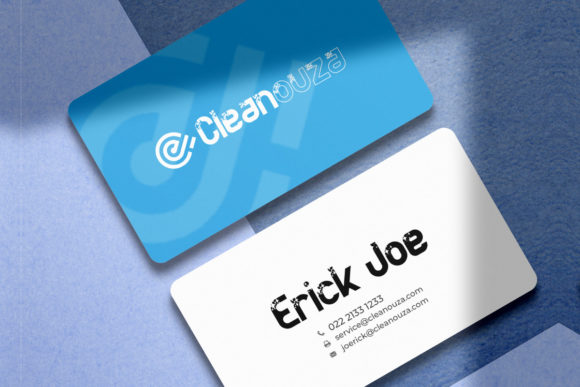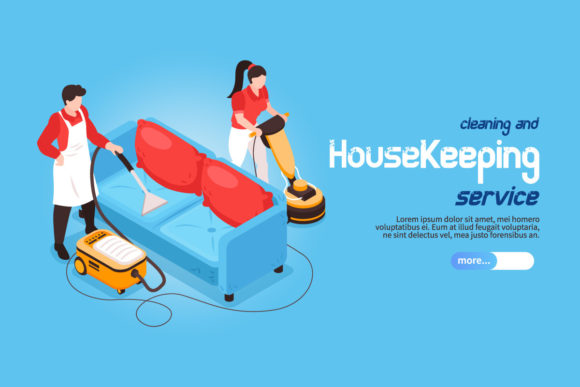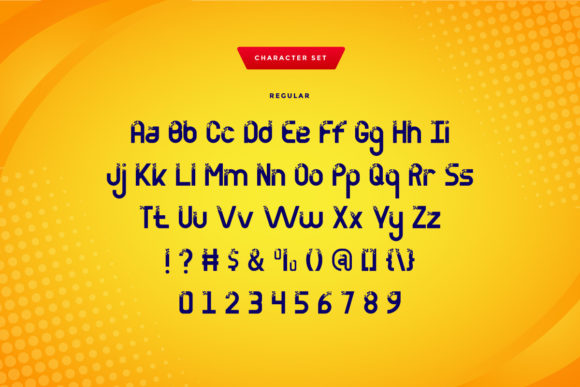
Introduction to Power Clean Font
Have you ever stared at a blank page, unsure of where to begin your next creative project? The blank canvas can be daunting, but what if you had the perfect tool to spark your imagination? That’s where the Power Clean Font comes in – a game-changing design resource that can elevate your work to the next level.
As a designer, you’re always on the lookout for high-quality fonts that can add a professional touch to your designs. The Power Clean Font is a cool and modern display font that’s perfect for making a statement. Whether you’re working on a graphic design project or creating a digital product, this font is sure to be an incredible asset to your library.
Not only is the Power Clean Font visually stunning, but it’s also free to download, making it an accessible design resource for designers of all levels. With its transparent background and sleek design, you can use it to create eye-catching graphics, logos, and more. Get ready to take your creative projects to new heights with the Power Clean Font.
Key Features of Power Clean Font
- High-quality design: Power Clean Font is a beautifully crafted font perfect for any creative project, offering a clean and modern aesthetic.
- Transparent background: The transparent background of Power Clean Font makes it easy to layer over images or use as a standalone design element.
- High-resolution design: This font is designed at 300 DPI, making it suitable for print and digital applications.
- Unique characteristics: Power Clean Font features a unique blend of clean lines, geometric shapes, and subtle nuances, setting it apart from other fonts in its class.
- Perfect for branding: With its modern and sophisticated design, Power Clean Font is ideal for creating a strong brand identity or logo for any creative project.
Honest Review: Power Clean Font
As a designer, I’m always on the lookout for high-quality fonts that can elevate my creative projects. Recently, I came across the Power Clean Font, and I must say, it’s been a game-changer. The font is perfect for any design resource that requires a clean and modern aesthetic.
What works well: ✨ The Power Clean Font is incredibly versatile and can be used for a wide range of design projects, from business cards to digital signage. The font is also available for free download, which is a major plus in my book. The transparent background is another feature that makes it easy to use in various design scenarios.
Here are some of the key features that I love about the Power Clean Font:
- Transparent background for easy use
- Perfect for modern and clean design aesthetics
Limitations: ⚠️ While the Power Clean Font is an excellent addition to any design resource, it may not be suitable for projects that require a more playful or whimsical feel. Additionally, the font may not be as customizable as some other fonts on the market.
Overall impression: I’m thoroughly impressed with the Power Clean Font, and I would highly recommend it to any designer looking for a high-quality, modern font. With its versatility, free download, and transparent background, it’s a design resource that’s hard to beat.
Import the Power Clean Font into Canva to add a touch of sophistication to your designs. Simply upload the font file and use it in your project, taking advantage of its transparent background for seamless layering.
Load the Power Clean Font into Adobe Photoshop or Illustrator for advanced design capabilities. Use the font in combination with other design elements to create stunning visual effects and high-end graphics.
Add a professional touch to your presentations and documents by incorporating the Power Clean Font in PowerPoint and Word. Use the font to create visually appealing headers and titles that stand out from the crowd.
Tips and Best Practices
To get the most out of the Power Clean Font, experiment with different font sizes, colors, and combinations. Use it to create a consistent design language throughout your project, and don’t be afraid to push the boundaries of creative expression.
The Power Clean Font is ideal for a range of applications, including:
- Branding and logo design
- Digital marketing materials
- Print materials, such as business cards and brochures
- Presentations and slides
Does the Power Clean Font have a transparent background?
Yes, the Power Clean Font has a transparent background, making it ideal for use on images and graphics with a transparent or semi-transparent background. This feature allows for seamless integration with your design elements and ensures a professional-looking result. You can use the font with a transparent background in various design software, including Adobe Photoshop and Illustrator.